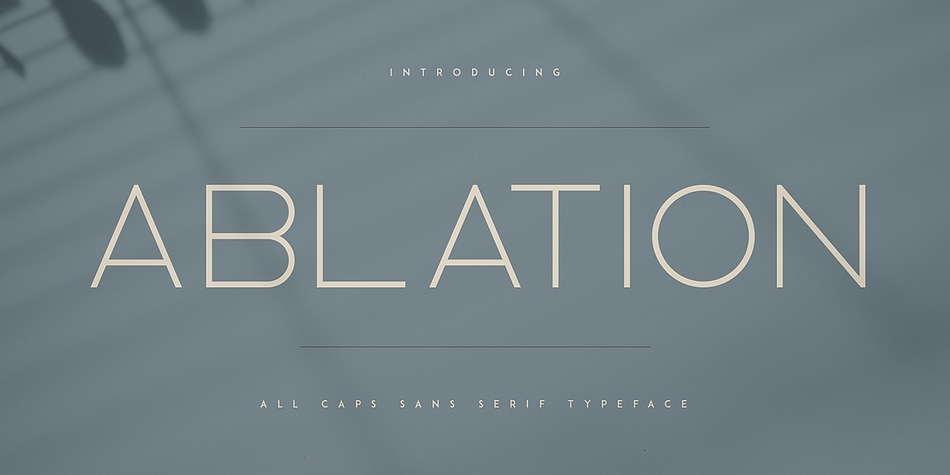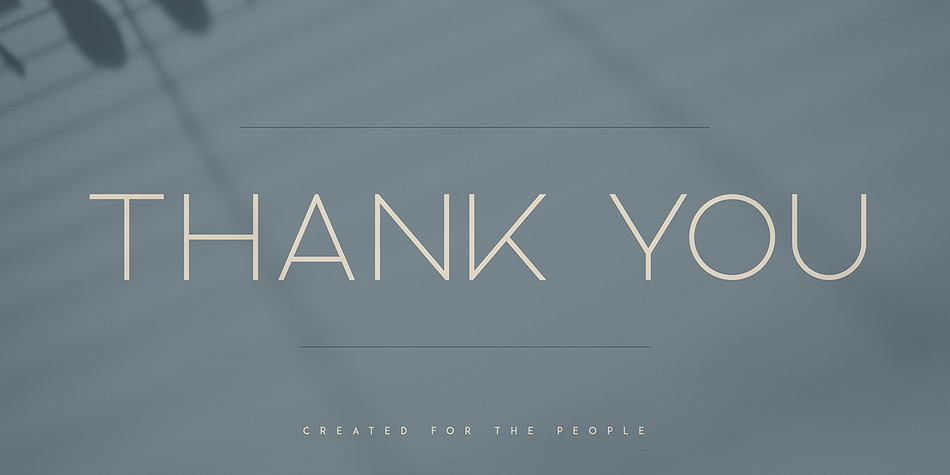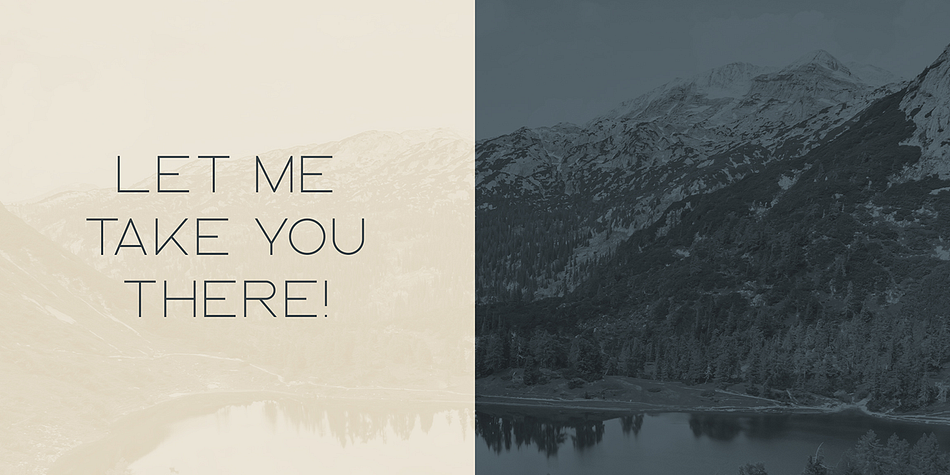
ABLATION
Ablation is a sans serif font family. This typeface has six styles and was published by VPcreativeshop.
Introducing Ablation Sans Serif Typeface - 6 weighs
Ablation is casual, clean typeface that contains 6 weights to enchant your next project. They have basic latin, advanced latin, basic Cyrillic and advanced Cyrillic character sets. Very versatile fonts that works great in large and small sizes.
Ablation is perfect for branding projects, home-ware designs, product packaging, magazine headers - or simply as a stylish text overlay to any background image.
Uppercase, numeral, punctuation & Symbol
Hairline
Light
Regular
Bold
Extra Bold
Black
Basic and advanced latin character sets
Basic and advanced Cyrillic character sets